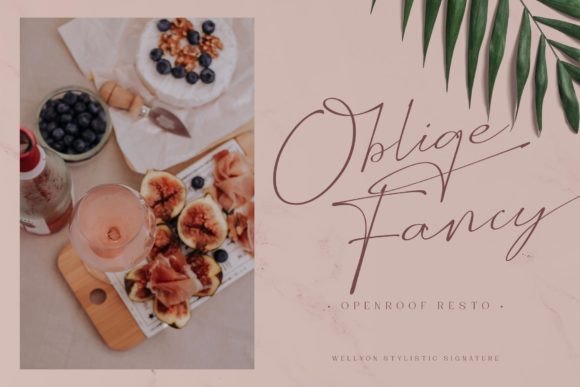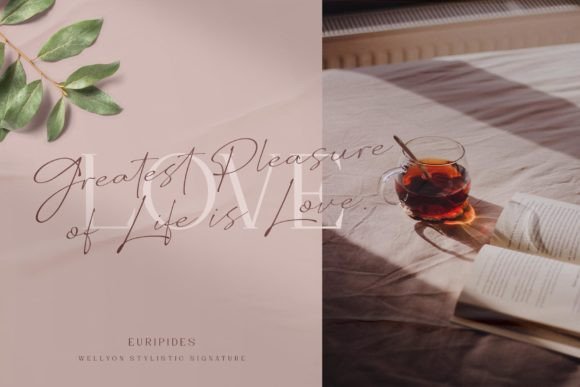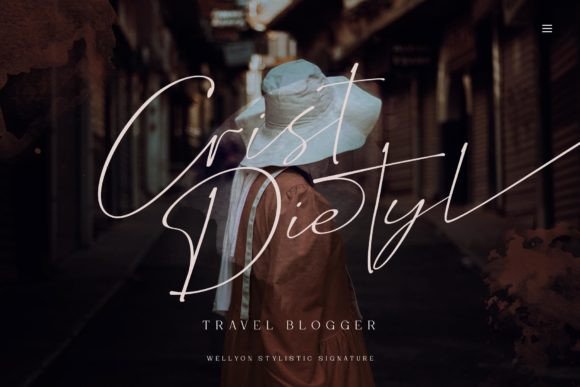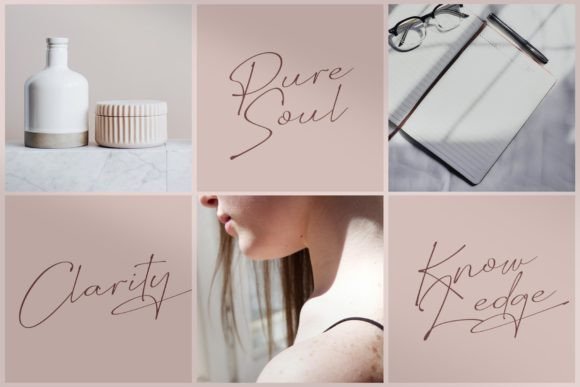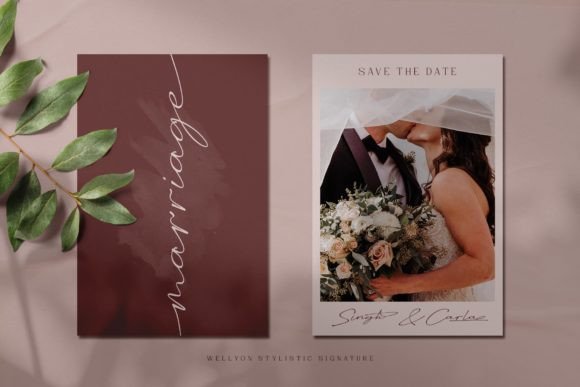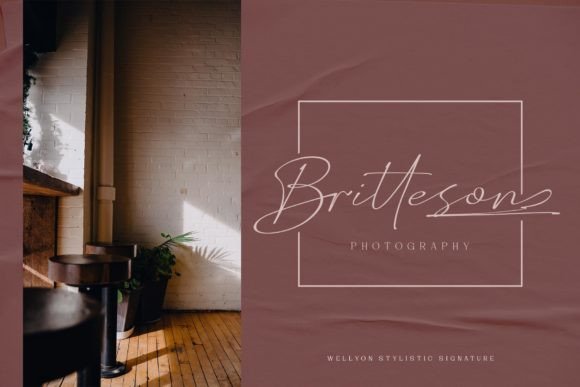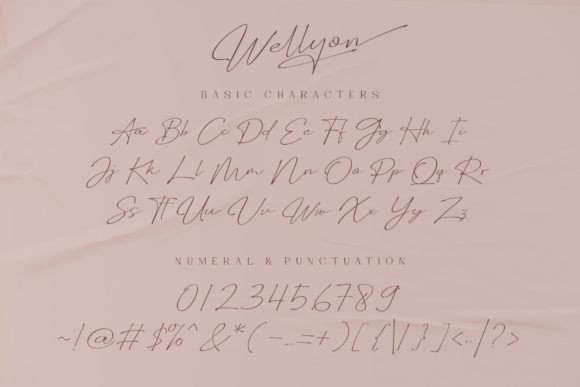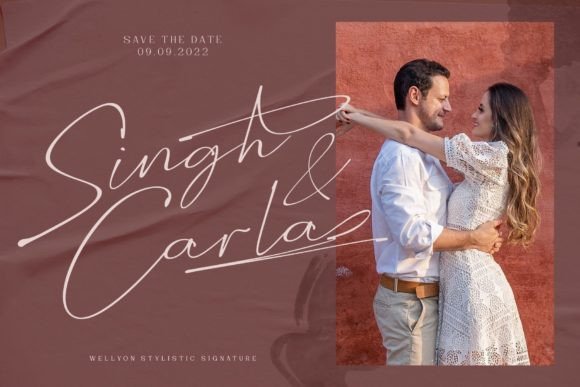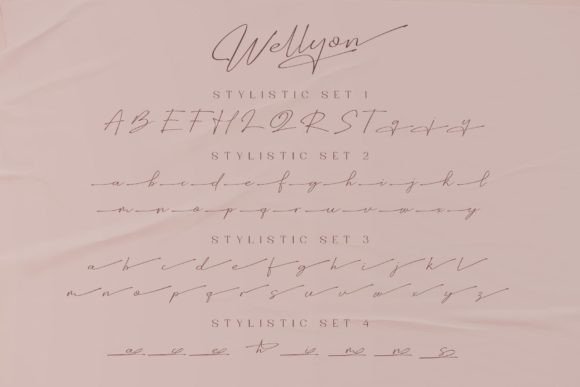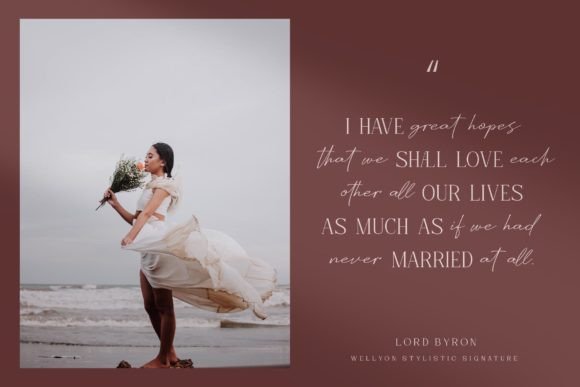
Wellyon Font
Wellyon Font: Dazzling Script for Sophisticated Designs
“Wellyon” is an exquisite script font that brings sophistication to every design. Its meticulous craftsmanship makes it perfect for various creative projects, from branding to invitations.
Key Features of Wellyon Font
• Elegant Style: Wellyon combines intricate details with dazzling elegance.
• Versatile Use: Suitable for many projects, including branding and posters.
• PUA Encoding: Easy access to all glyphs and swashes for customization.
Wellyon’s refined style is ideal for creating sophisticated logo designs and branding materials that exude luxury.
Invitations and Stationery
Use Wellyon to design elegant wedding invitations and other special event materials. Its graceful characters add a touch of class to your stationery.
Poster and Print Design
The font’s distinct look makes it perfect for creating eye-catching posters and print materials that demand attention.
Why Choose Wellyon Font?
Wellyon offers more than just beautiful letters. Here’s why it stands out:
• Enhances the visual impact of your designs
• Provides extensive customization options
• Inspires creativity and transforms projects
By using Wellyon, you open up new design possibilities. Its sophisticated style works well in many contexts, from website headers to print materials. The font’s ability to convey refinement can inspire creative ideas and help you approach projects from a fresh perspective.
Wellyon in Modern Design Trends
Wellyon aligns well with modern design trends that favor expressive typography. Its intricate details and elegant style add a premium touch that resonates with audiences seeking sophistication in design. This makes it particularly effective for luxury brands or high-end products and services.
If you’re looking for a font that combines dazzling elegance with meticulous craftsmanship, Wellyon is an excellent choice. It’s perfect for adding a sophisticated touch to your work, especially for projects that need to convey luxury and refinement.
Explore how Wellyon can transform your designs. From branding projects to special event materials, this font brings a graceful and captivating quality to your creations.